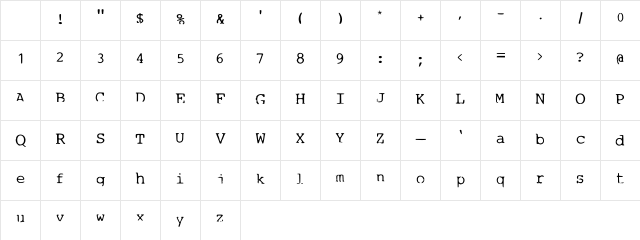
Complete 1980sWriter Medium glyph index. Displaying only characters natively supported by 1980sWriter Medium font.
1980sWriter is a composed and adaptable typeface that performs quietly and consistently across a wide range of design contexts.